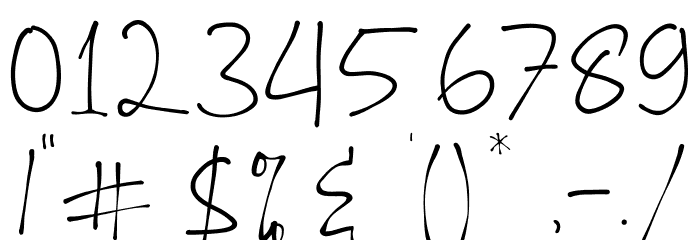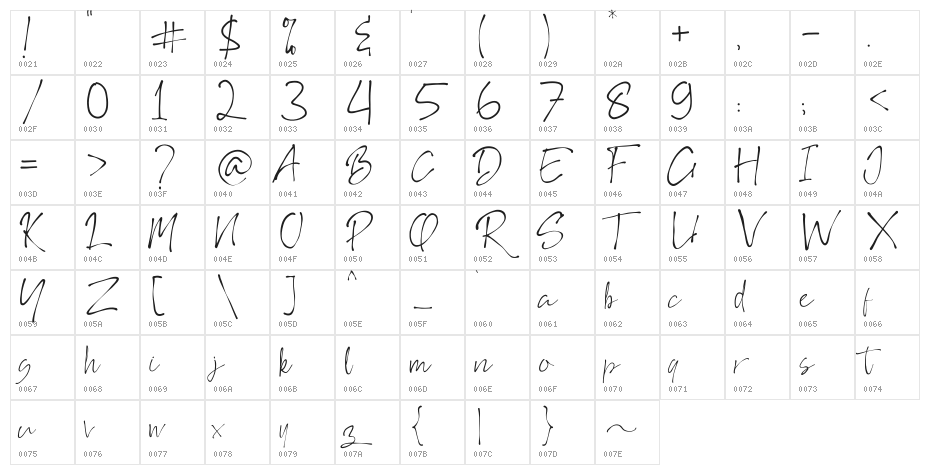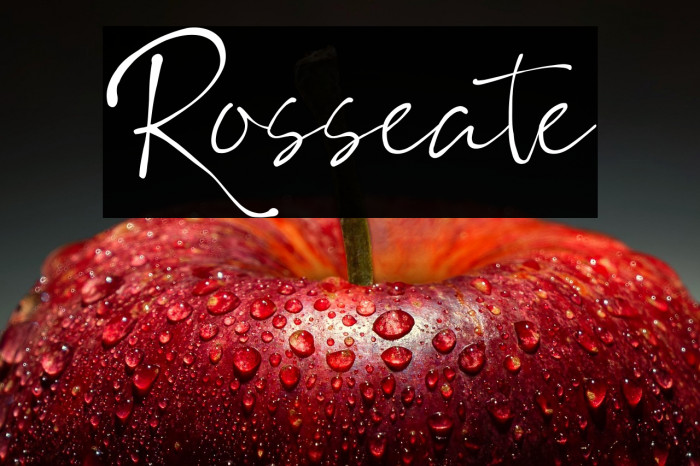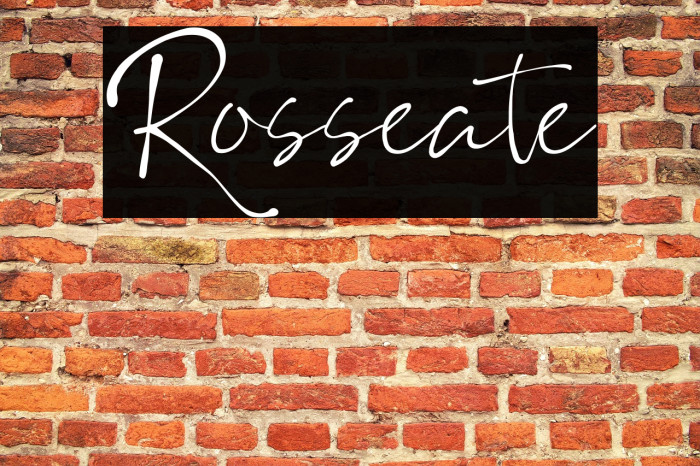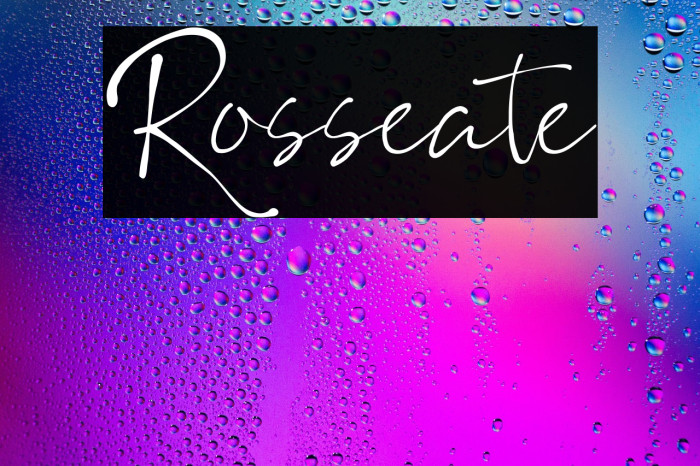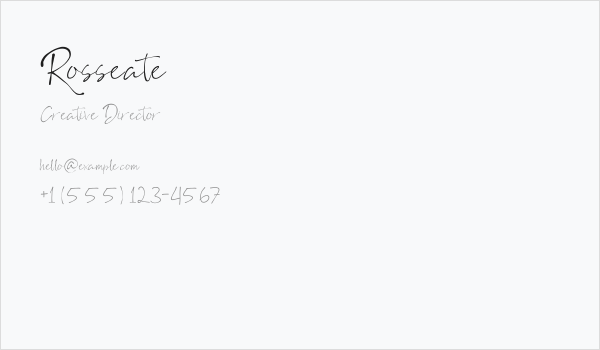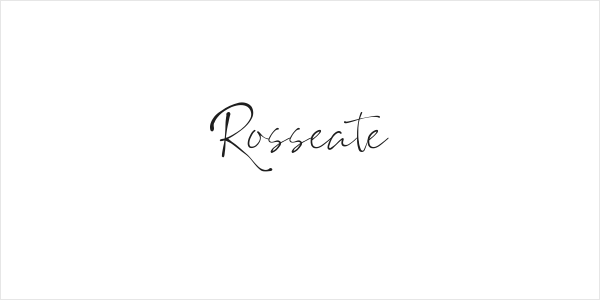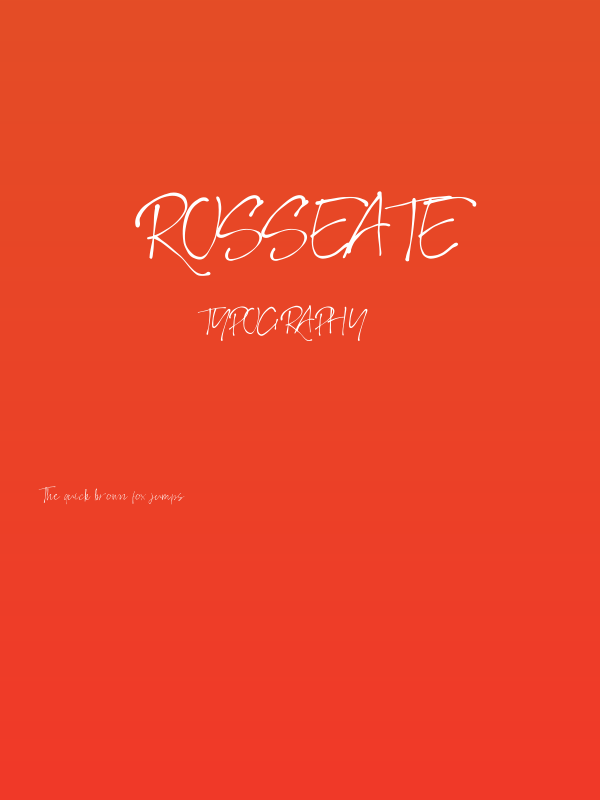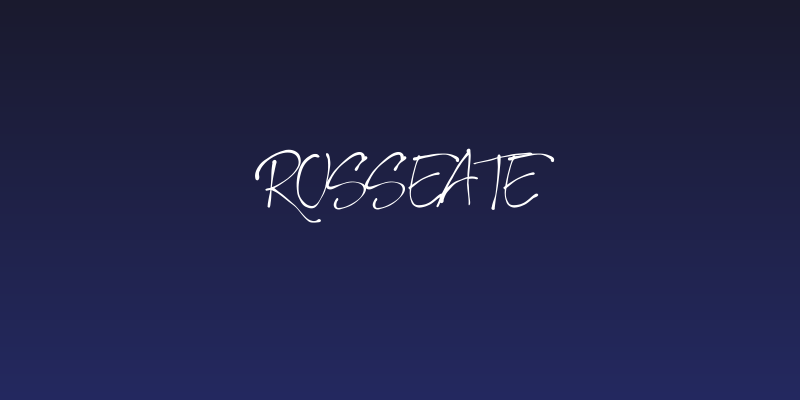
Rosseate Font
Rosseate Description
This font exudes a casual, handwritten style with a lively and expressive character. The letters are fluid and dynamic, with varying stroke widths that add a sense of movement and personality. The uppercase letters are bold and slightly slanted, while the lowercase letters maintain a consistent flow, enhancing readability. The numerals are clear and distinct, complementing the overall playful aesthetic. Special characters are well-integrated, maintaining the font's cohesive look. The font's informal yet stylish appearance makes it suitable for creative and artistic projects.
| Overall Style | Casual, Artistic |
| Use Case | Headlines, Creative projects, Personal branding |
| Proposed Projects | Ideal for greeting cards, invitations, personal branding, and creative projects. |